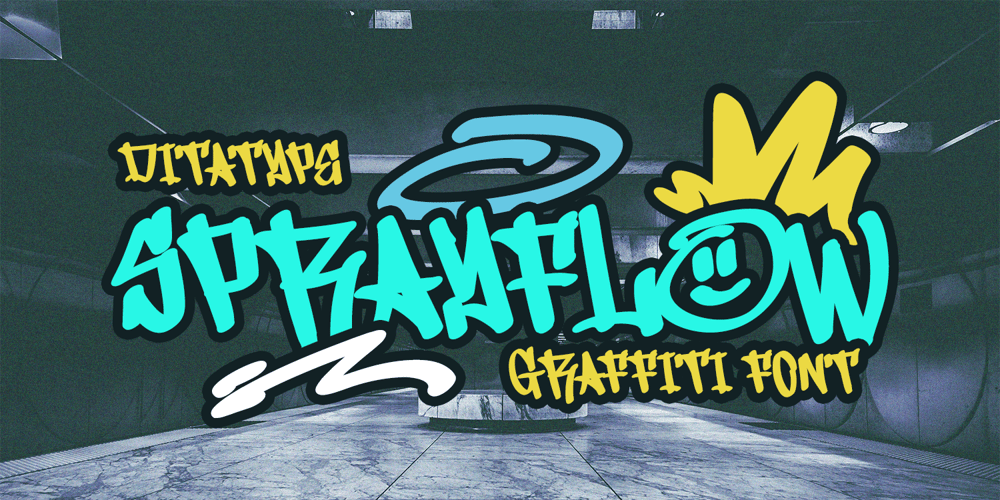
Sprayflow
Sprayflow font
Sprayflow Font Family was designed by Donis Miftahudin and published by Ditatype. Sprayflow contains 1 styles and family package options. Sprayflow is a bold, all-caps graffiti font that radiates an urban edge. With its fairly sharp angles and consistent proportions, this typeface delivers a dynamic punch to any design. Perfect for street art-inspired projects, Sprayflow adds a dose of modern, high-impact style that won’t be ignored. In addition, enjoy the features here. Features: Ligatures Multilingual Supports PUA Encoded Numerals and Punctuations Sprayflow fits in logos, posters, branding materials, print media, editorial layouts, and many more designs. Find out more ways to use this font by taking a look at the font preview.Thanks for purchasing our fonts. Hopefully, you have a great time using our font. Feel free to contact us anytime for further information or when you have trouble with the font. Thanks a lot and happy designing.